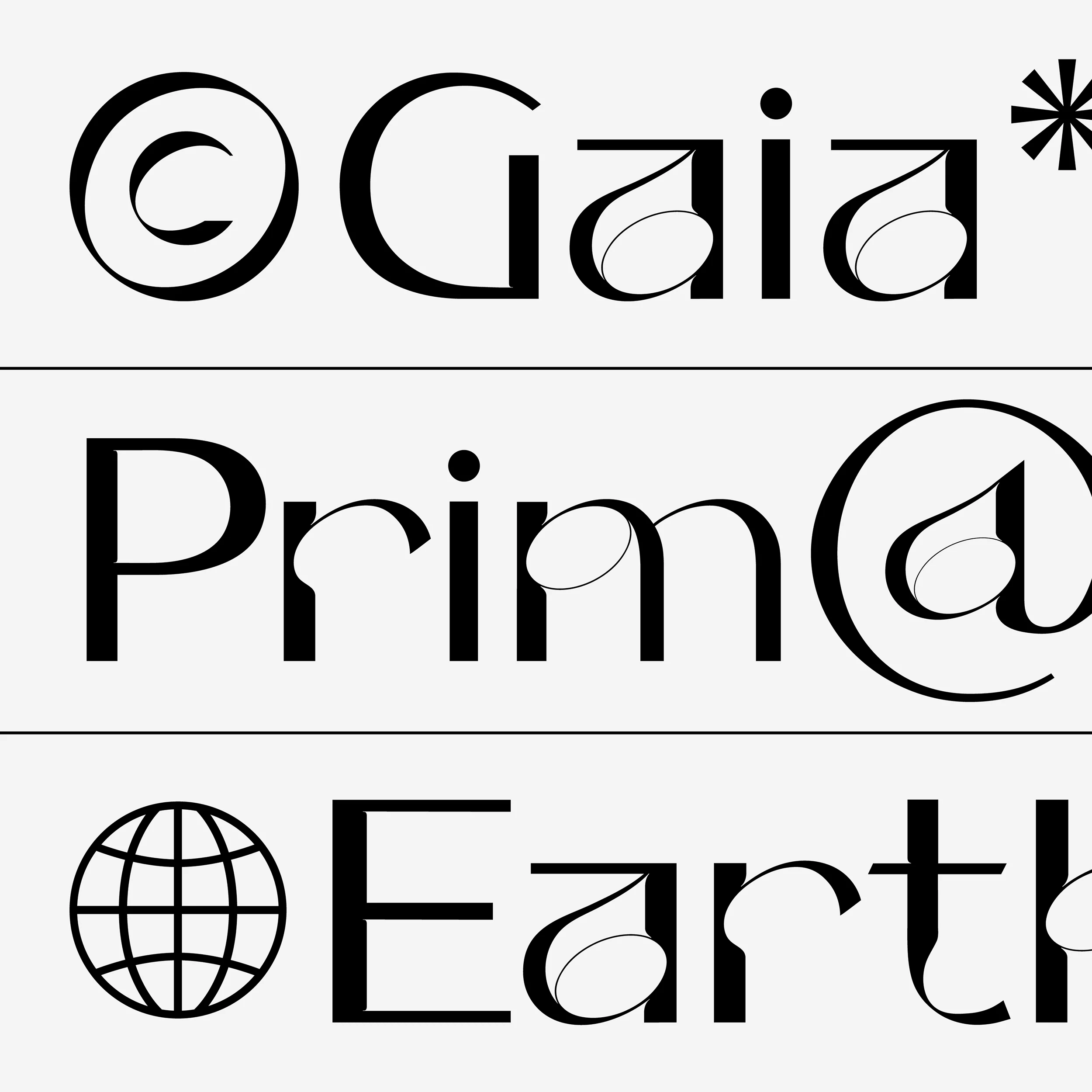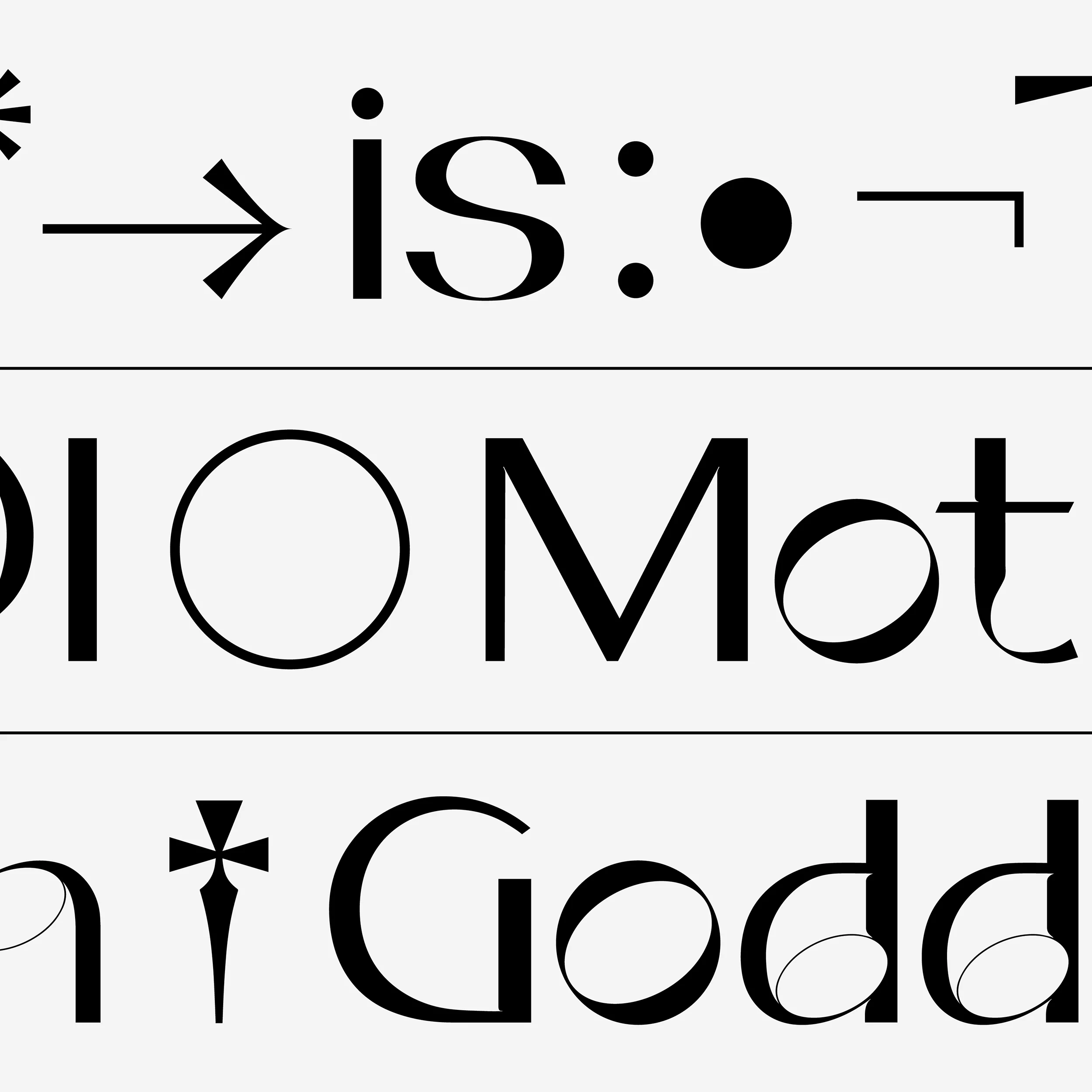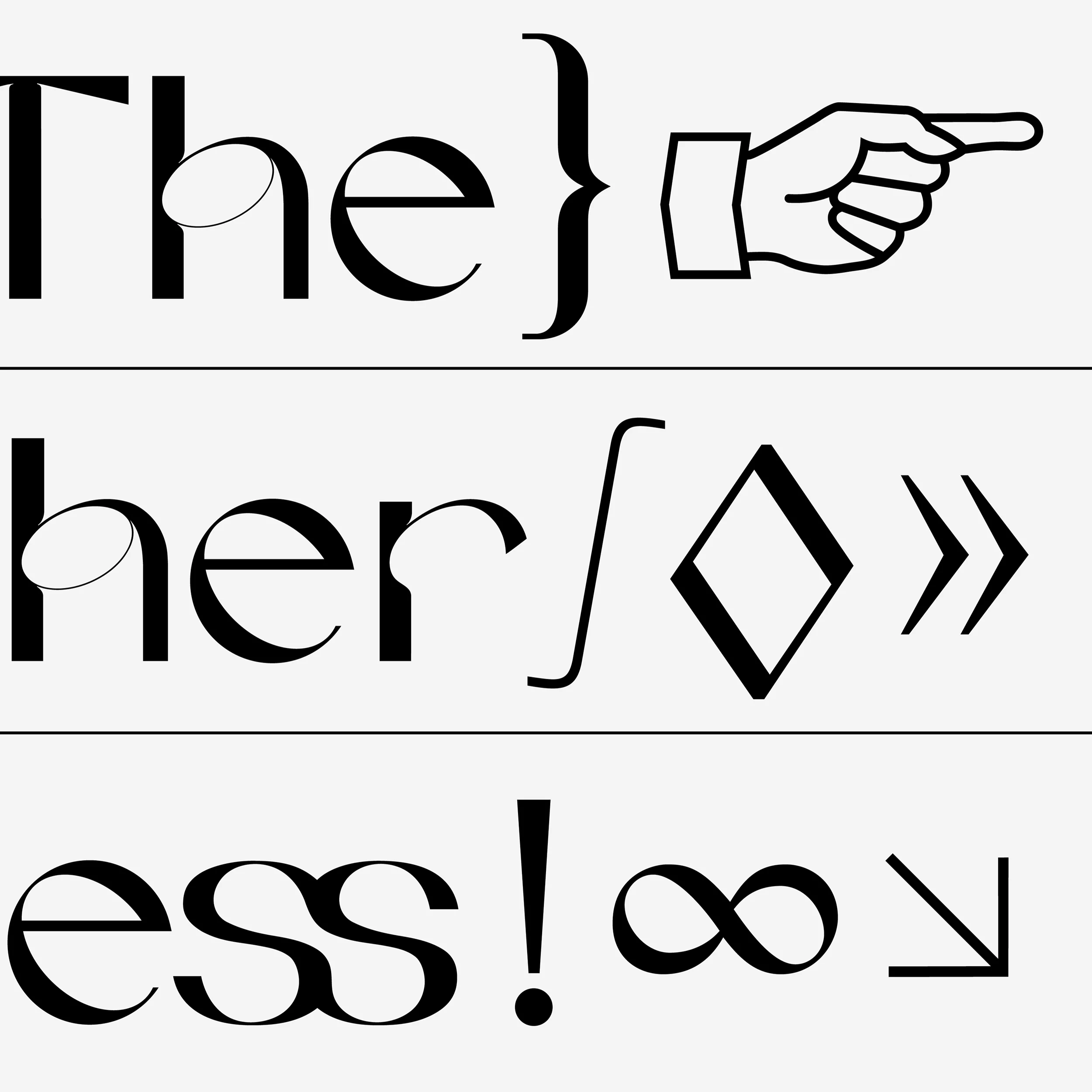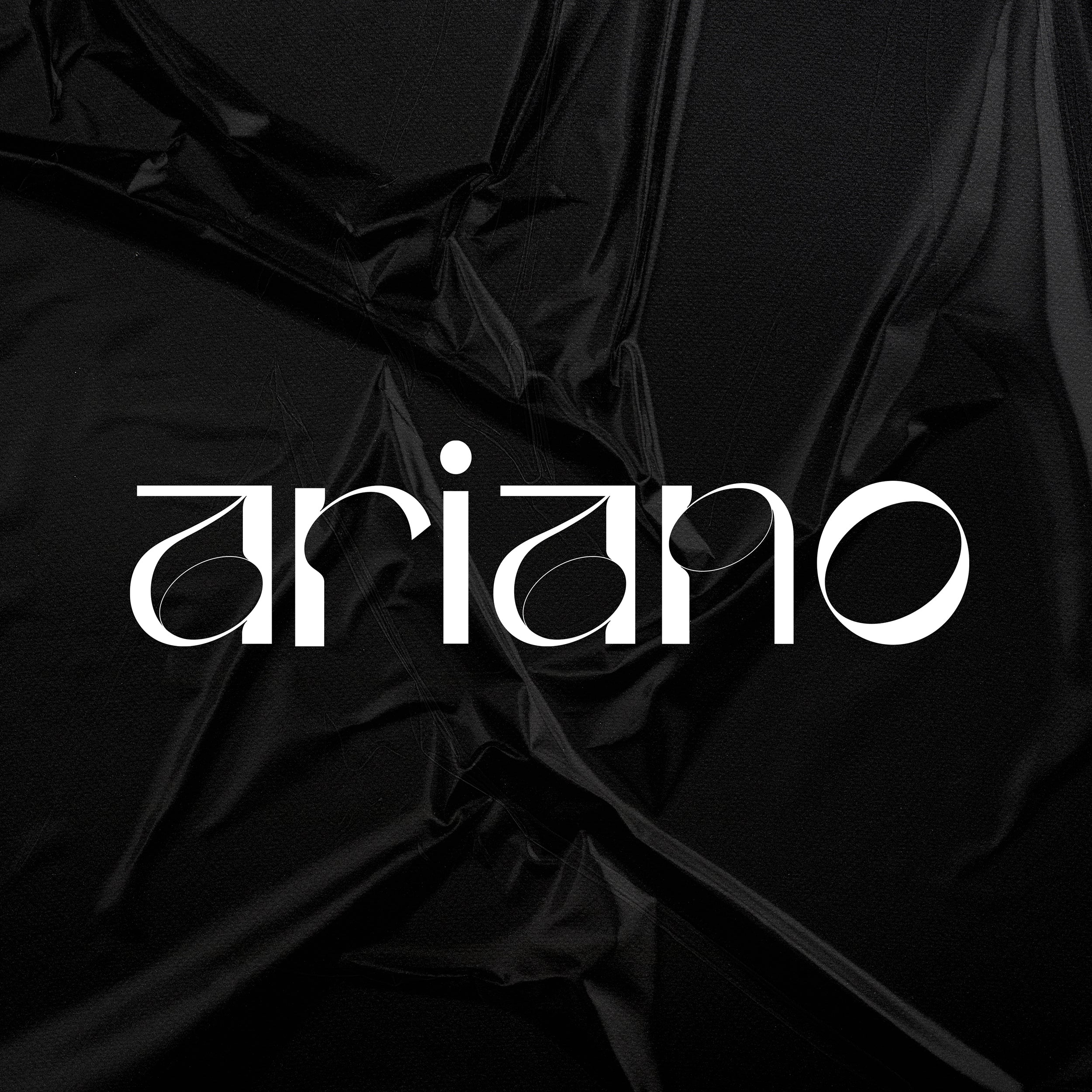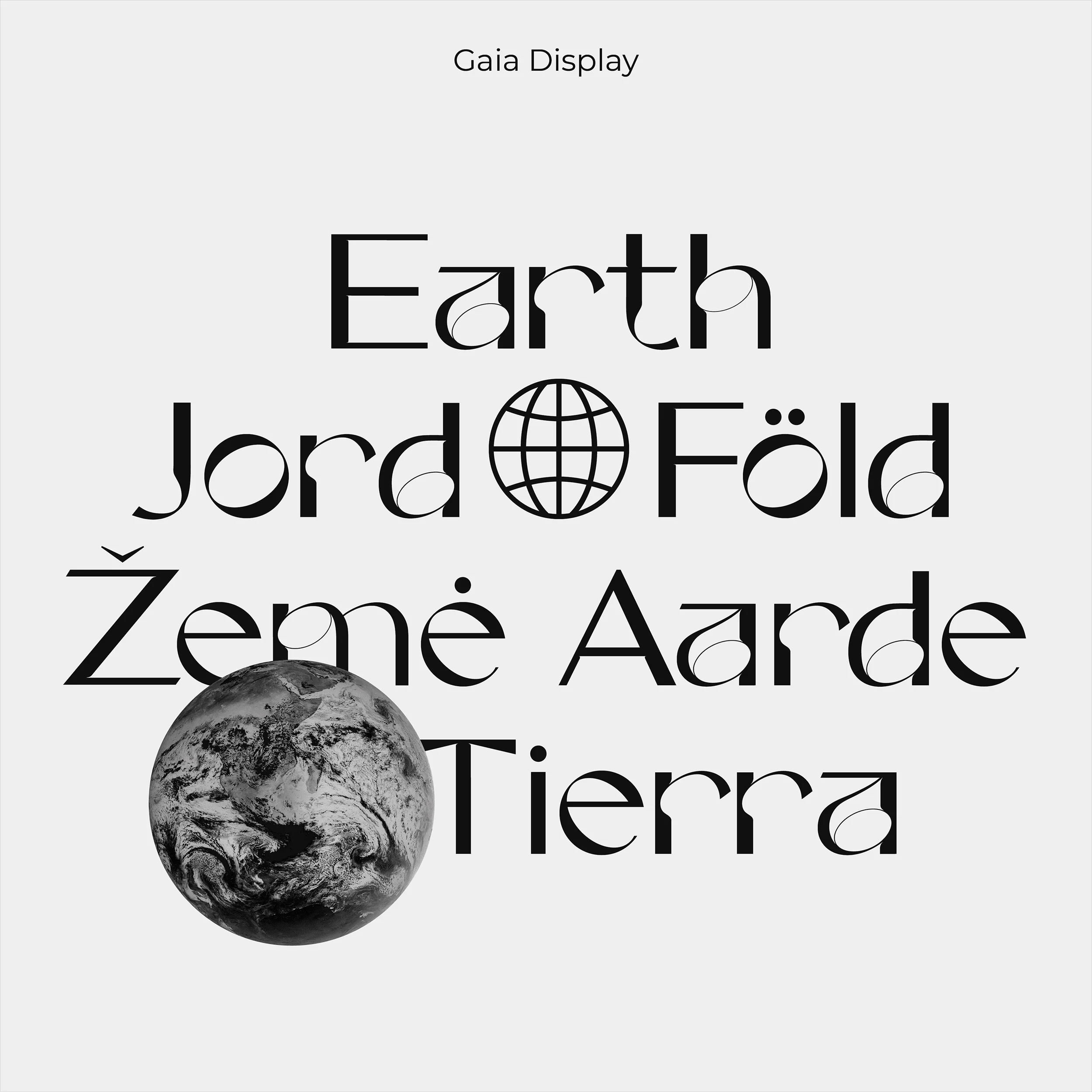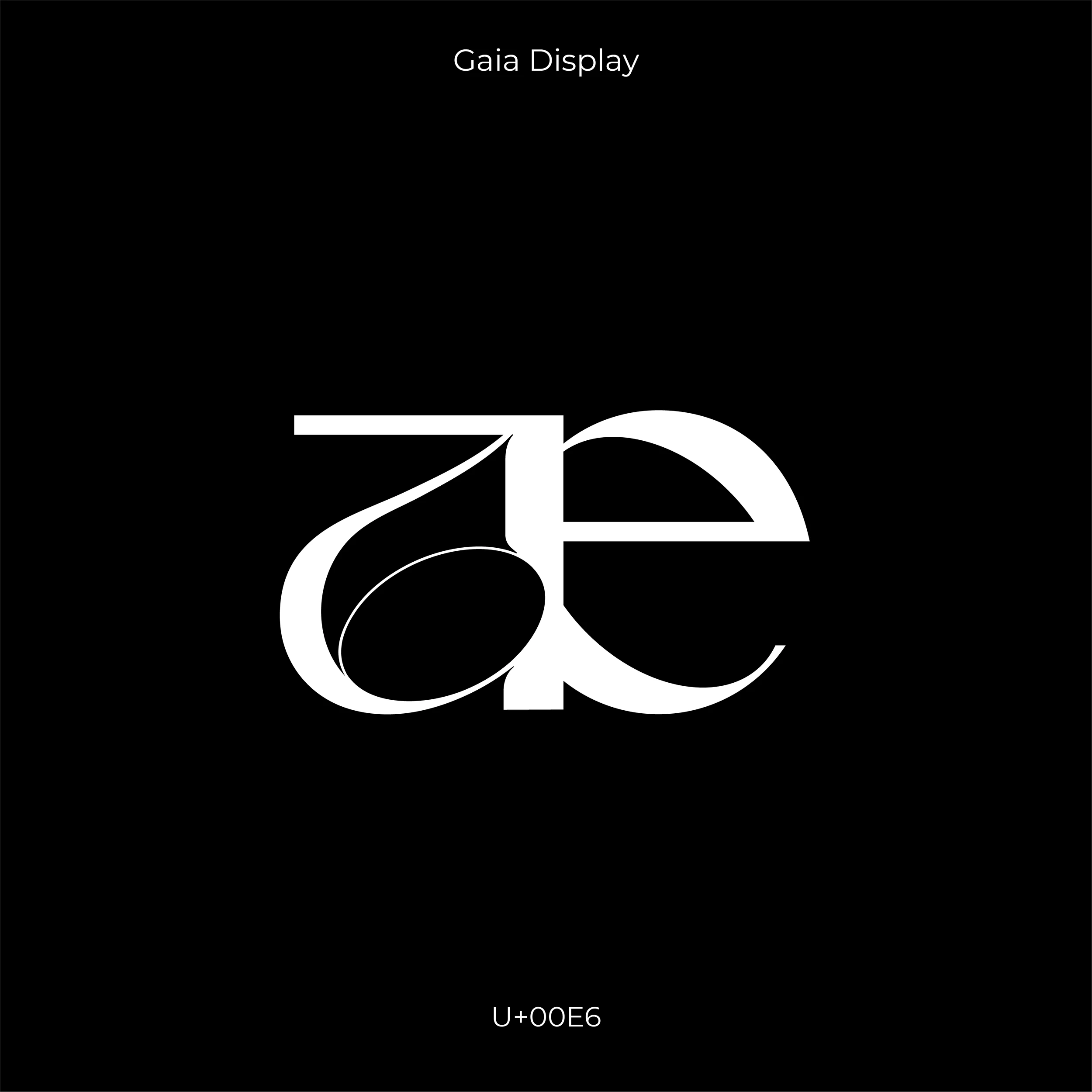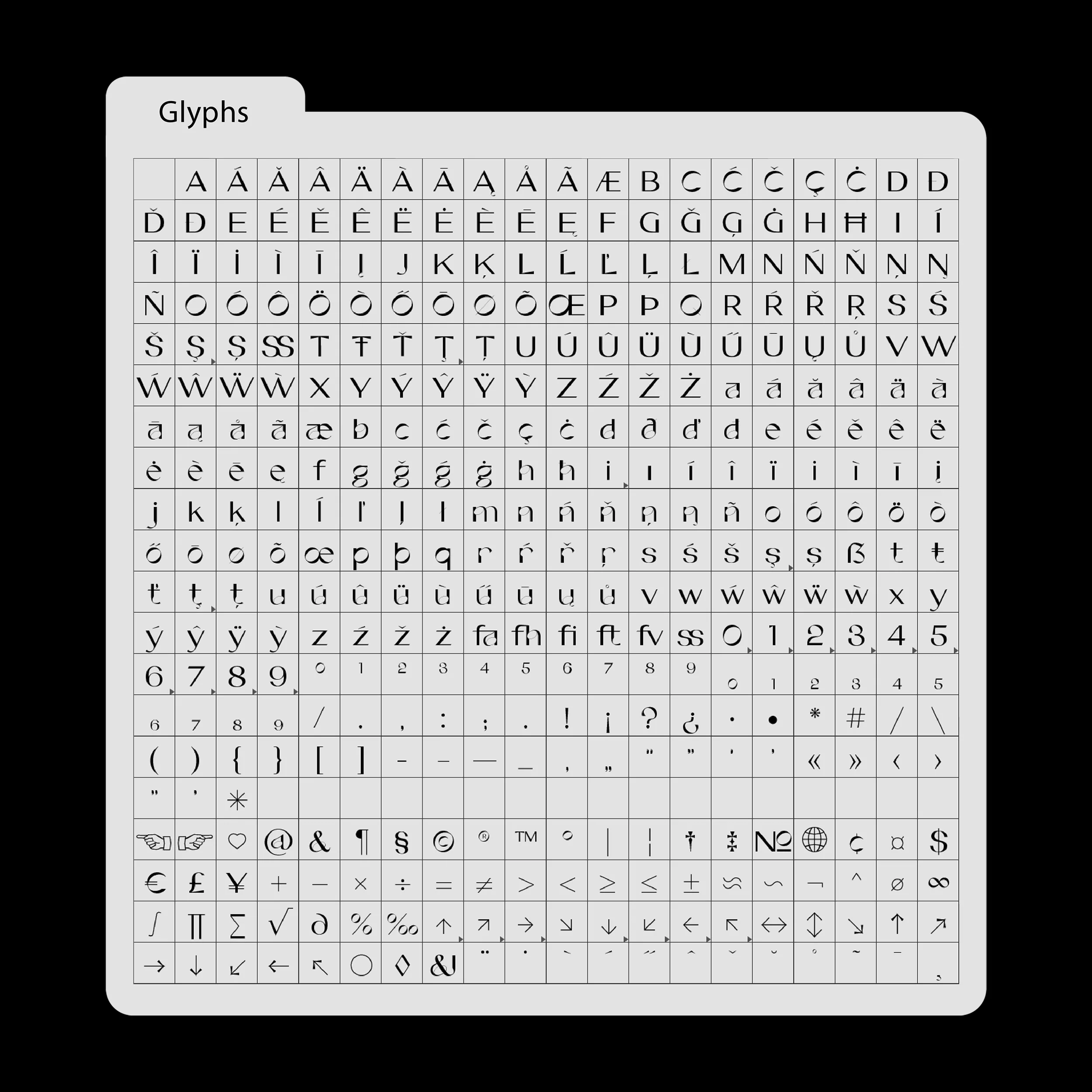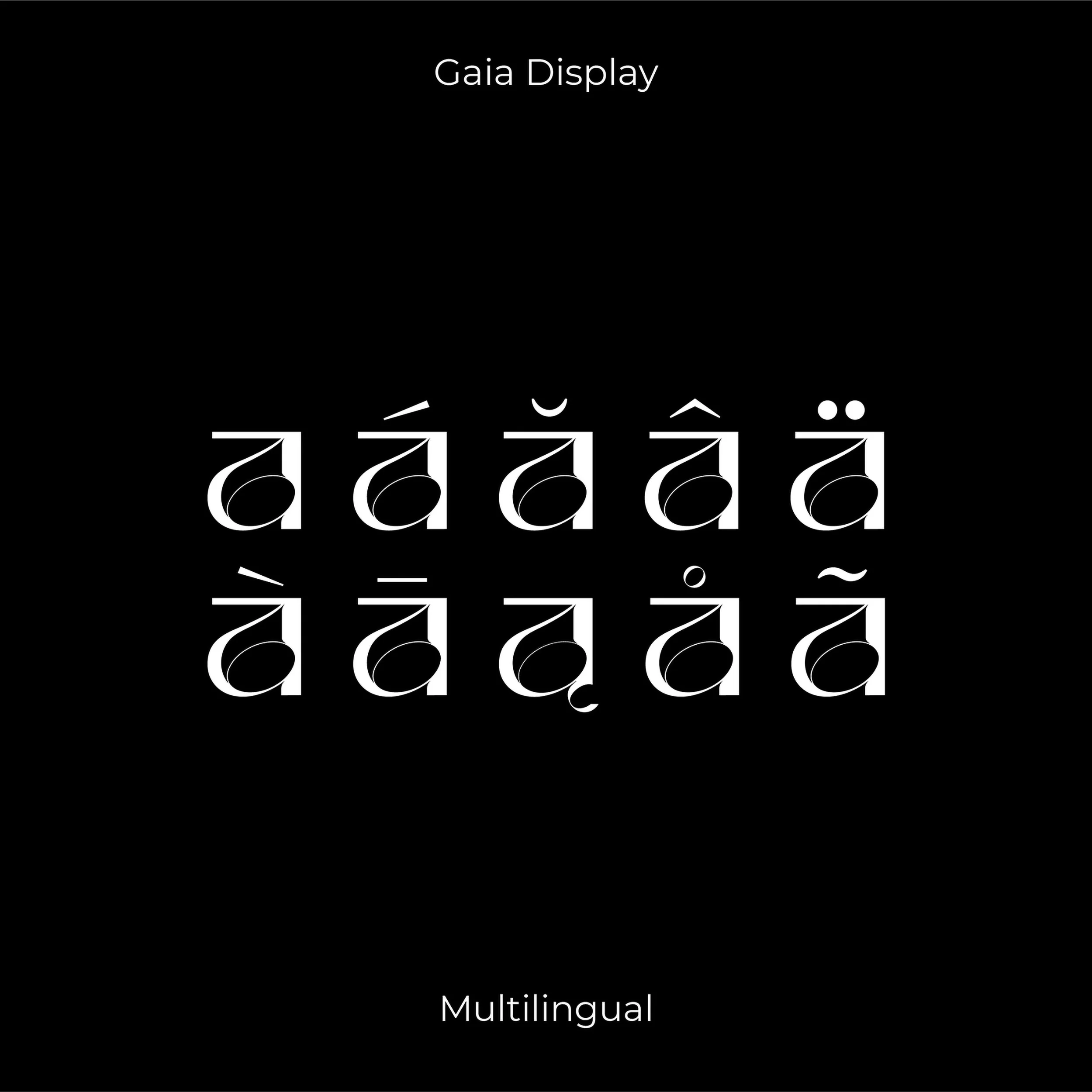
Gaia Display
Gaia Display is an experimental sans-serif typeface meticulously crafted in 2020 by Nora Kaszanyi. Inspired by Gaia, the Earth goddess in Greek mythology, this font embodies the essence of the primordial mother of all life.
Designed with high contrast and intricate ornamentation, Gaia Display is ideal for headlines and short to medium-length texts. Its unique appearance highlights feminine shapes and delicate lines, imparting a remarkably beautiful finish to any design.
Whether used sparingly for impactful headlines or in longer texts to showcase its detailed glyphs, Gaia Display offers a distinctive and artistic touch, perfect for editorial layouts, branding, and creative projects that demand elegance and character.